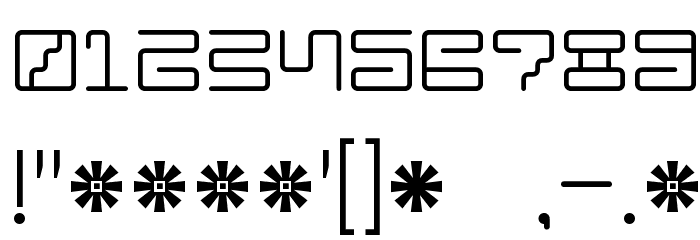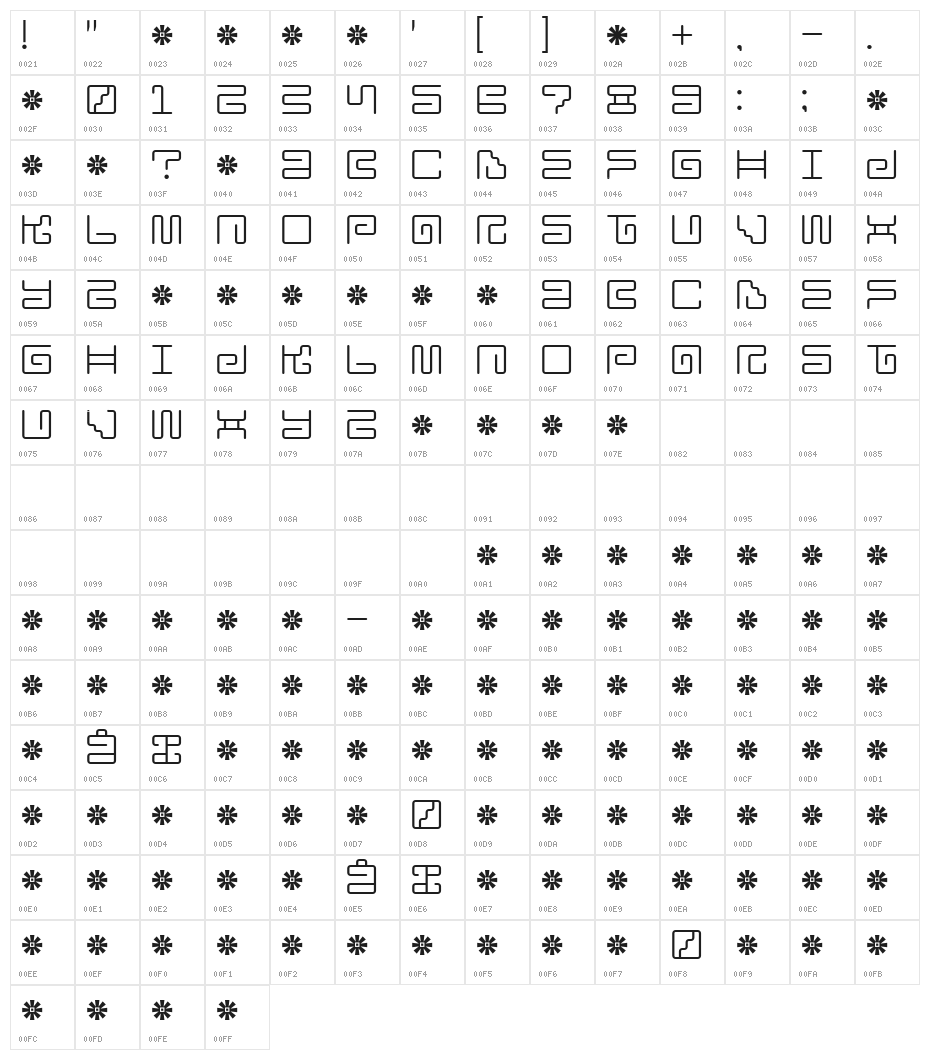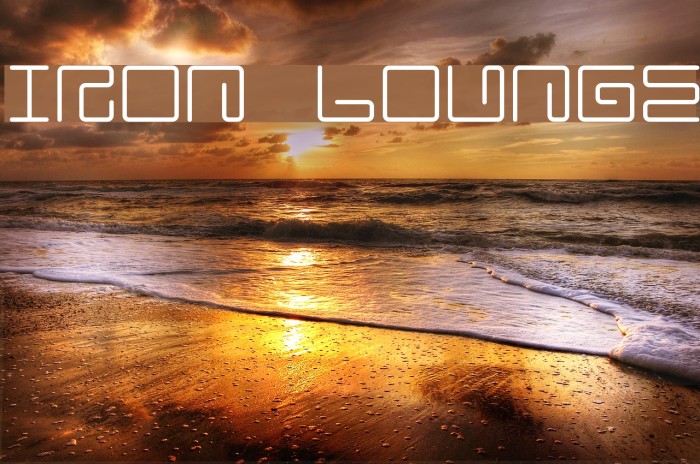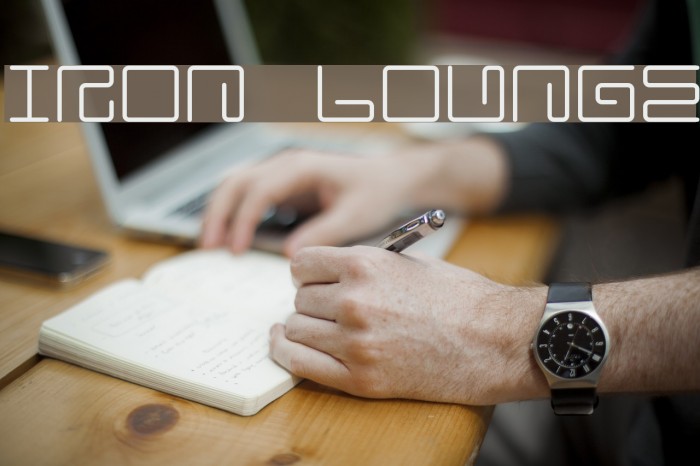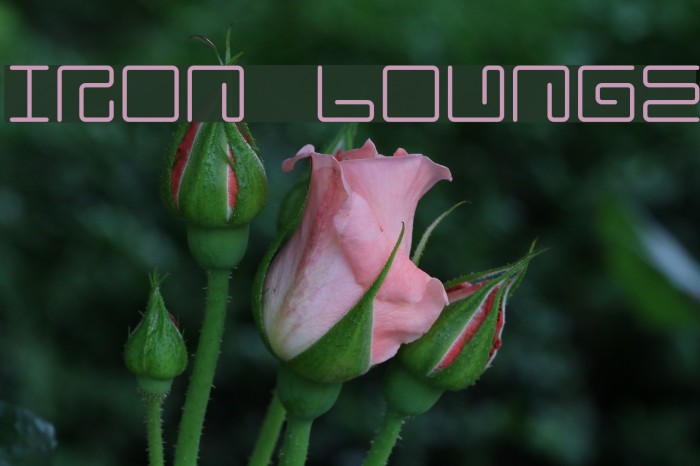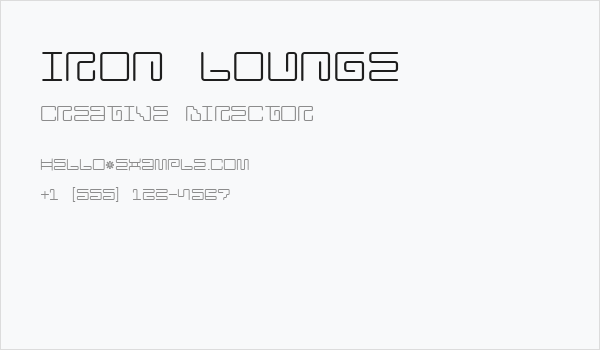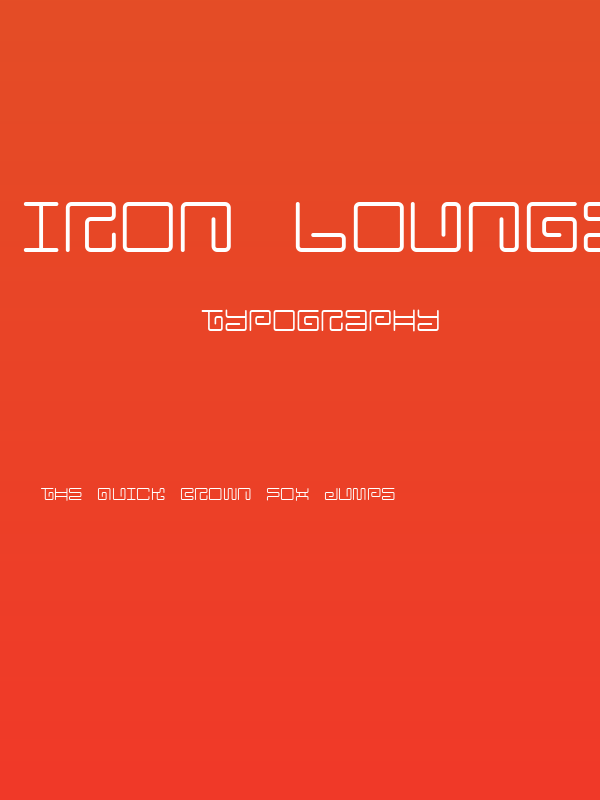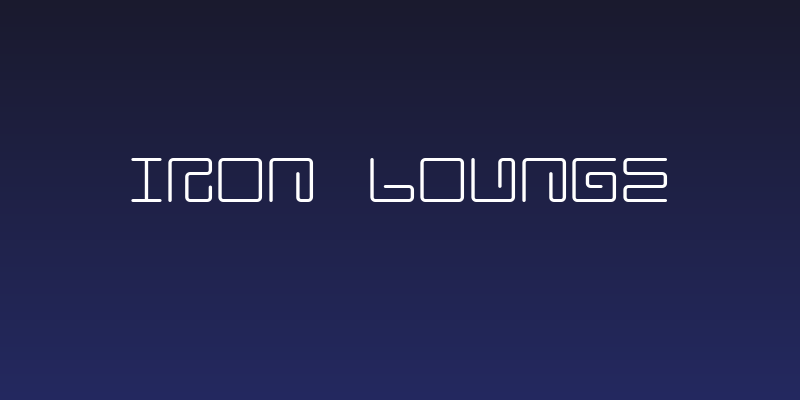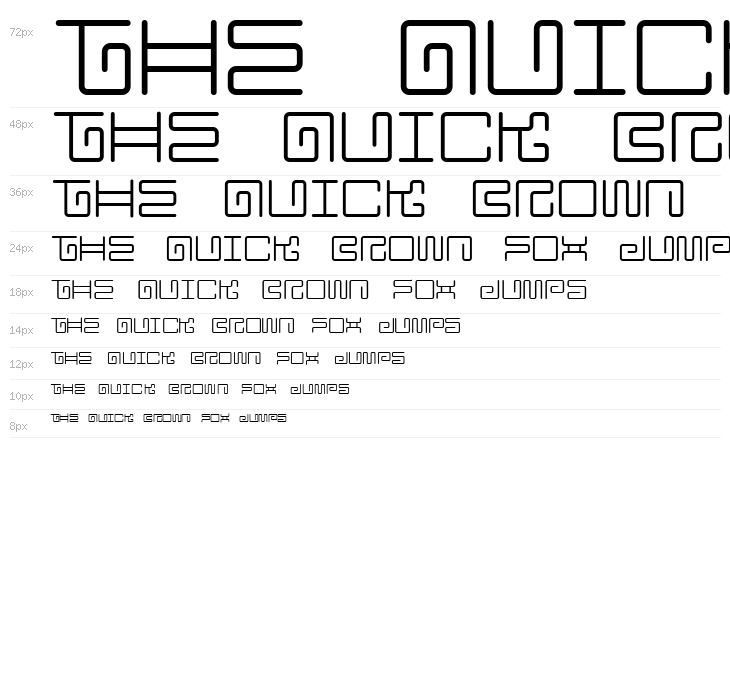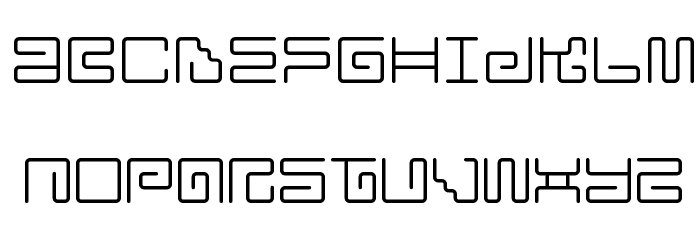
Iron Lounge Font
Iron Lounge Description
This font features a futuristic and geometric design with a distinct, modular appearance. Each character is constructed with clean, continuous lines that form unique, angular shapes. The uppercase and lowercase letters share a similar structure, creating a cohesive look. The numerals and special characters maintain the same geometric style, enhancing the overall uniformity. The font's open, airy design gives it a modern and tech-inspired feel, making it suitable for digital and sci-fi themed projects.
| Use Case | Logos, Headlines, Digital Interfaces |
| Proposed Projects | Ideal for digital interfaces, sci-fi movie posters, video game titles, and tech branding. |